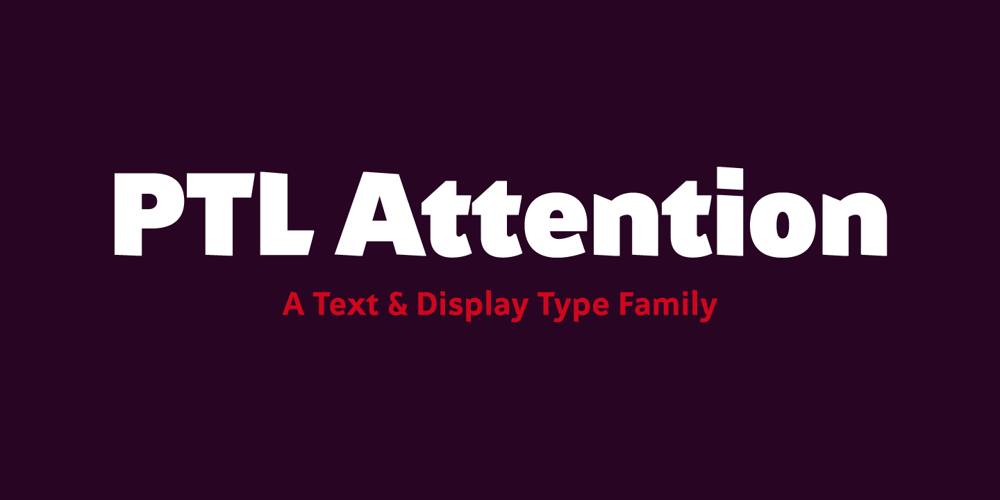
PTL Attention Font Family was designed by Viktor Nübel and published by Primetype. PTL Attention contains 36 styles and family package options. PTL Attention a robust and contemporary sans serif type family with its very own characteristics. Made for work in text as well as display it comes with nine weights in two styles, including small caps, a set of contemporary OpenType features, all standard figure sets and a rich language support. The concept for PTL Attention goes back to the days of Viktor’s thesis Type Attack!. From the beginning there was the idea not only to have a display stencil type like PTL Attack, but also to create a more serious companion. One of the intentions while designing it was also to come to an result that shows not another feel-good, streamlined corporate typeface. A pinch of “anti” should vibrate with it. Nevertheless the main intention was to create a highly legible and useful type family.